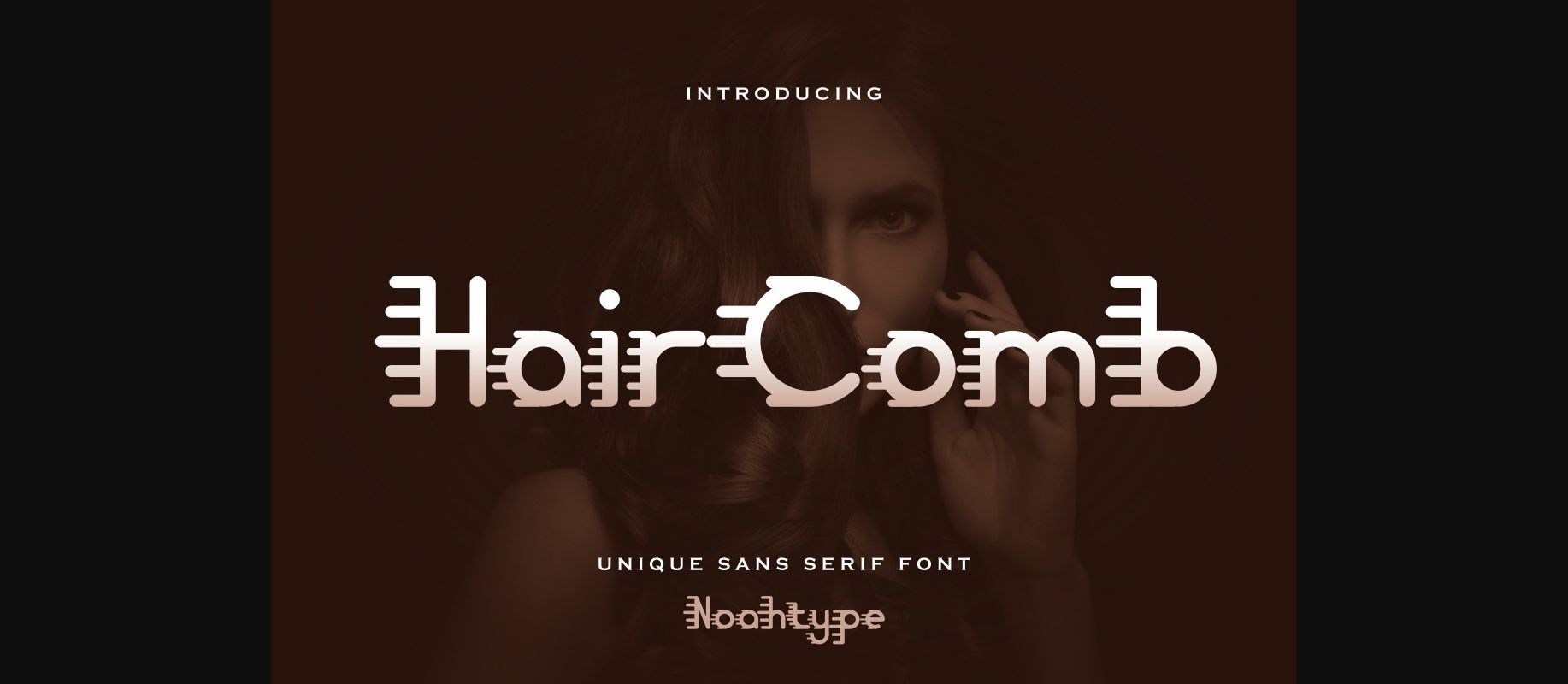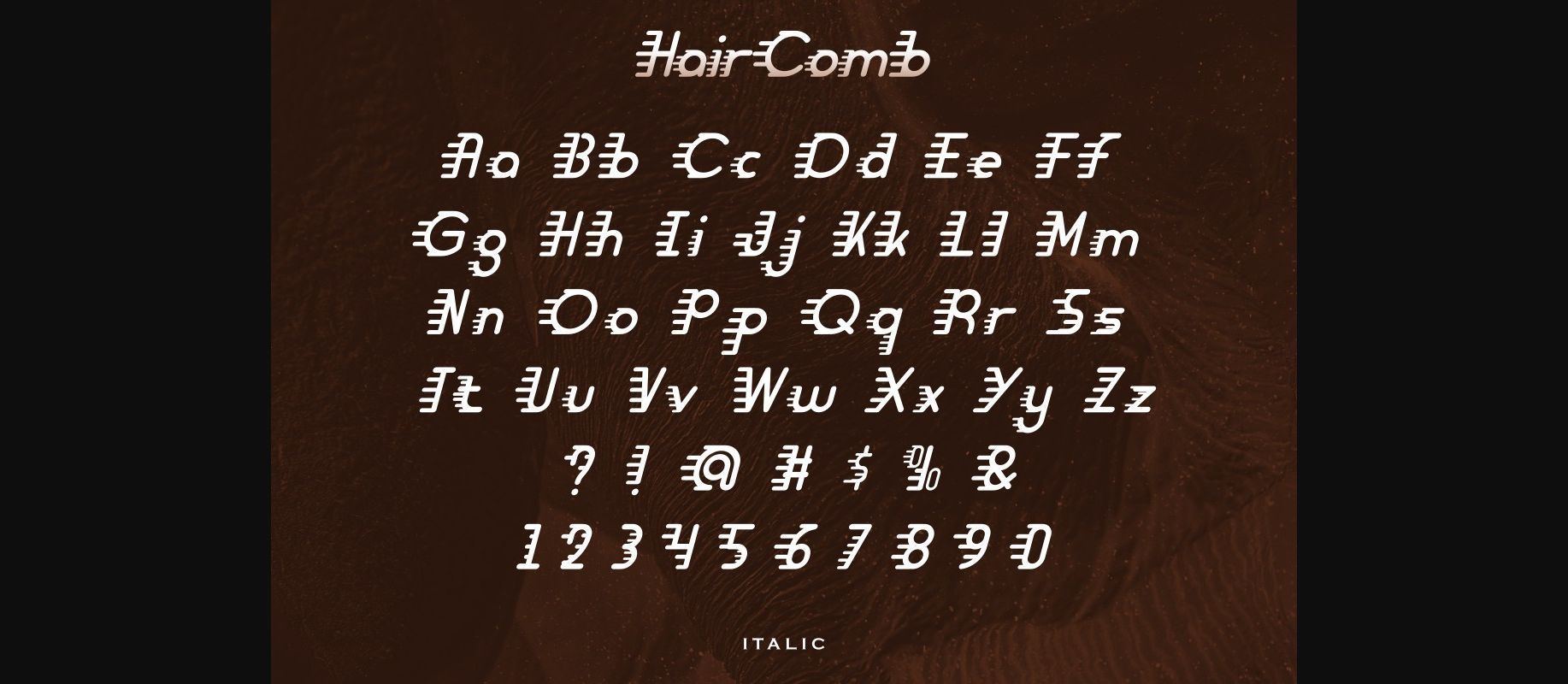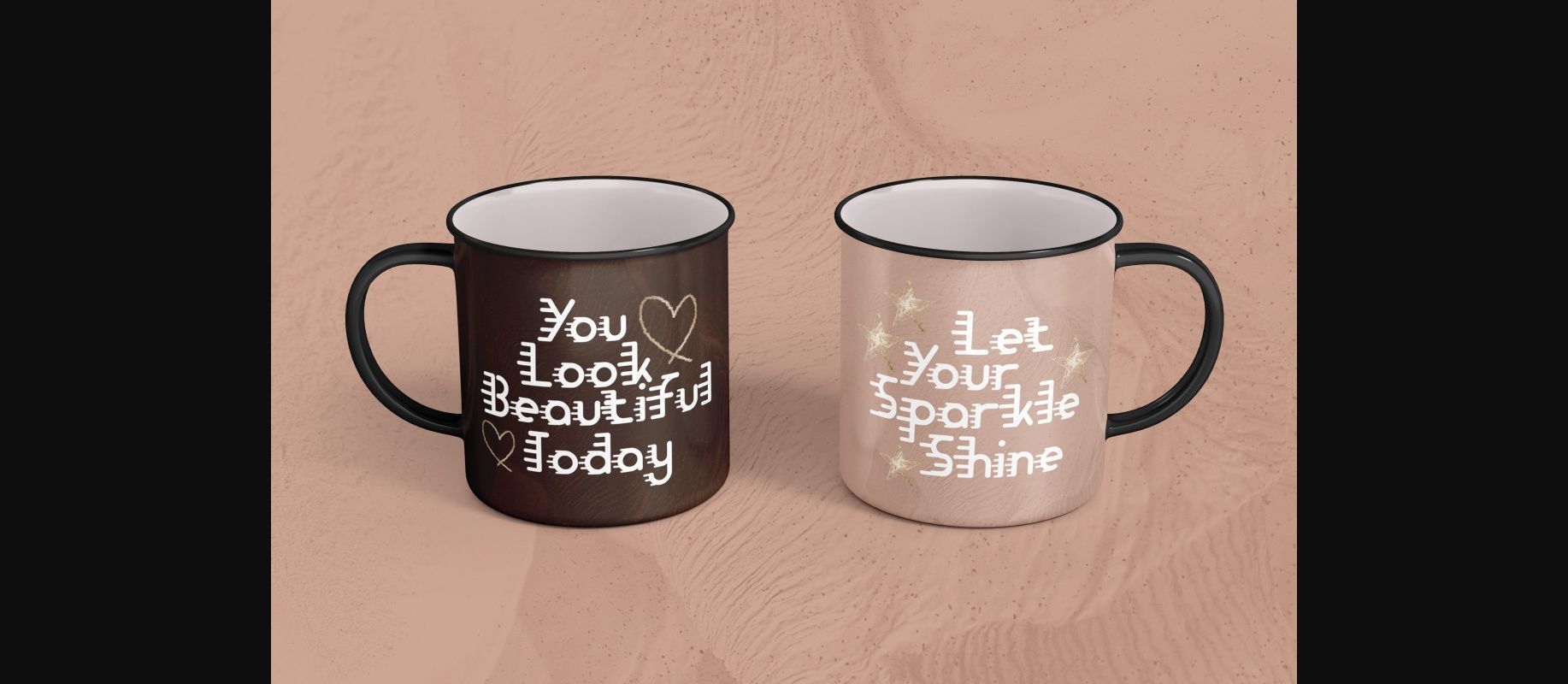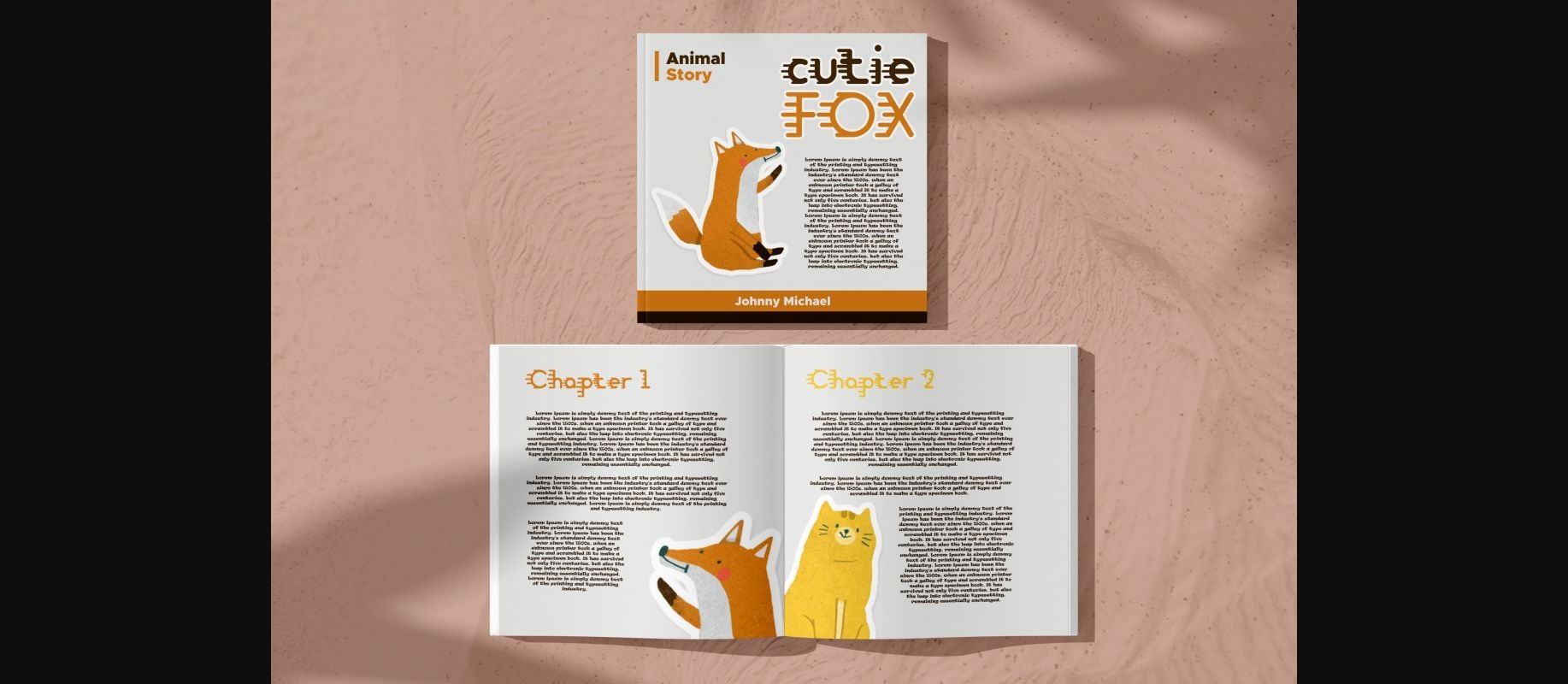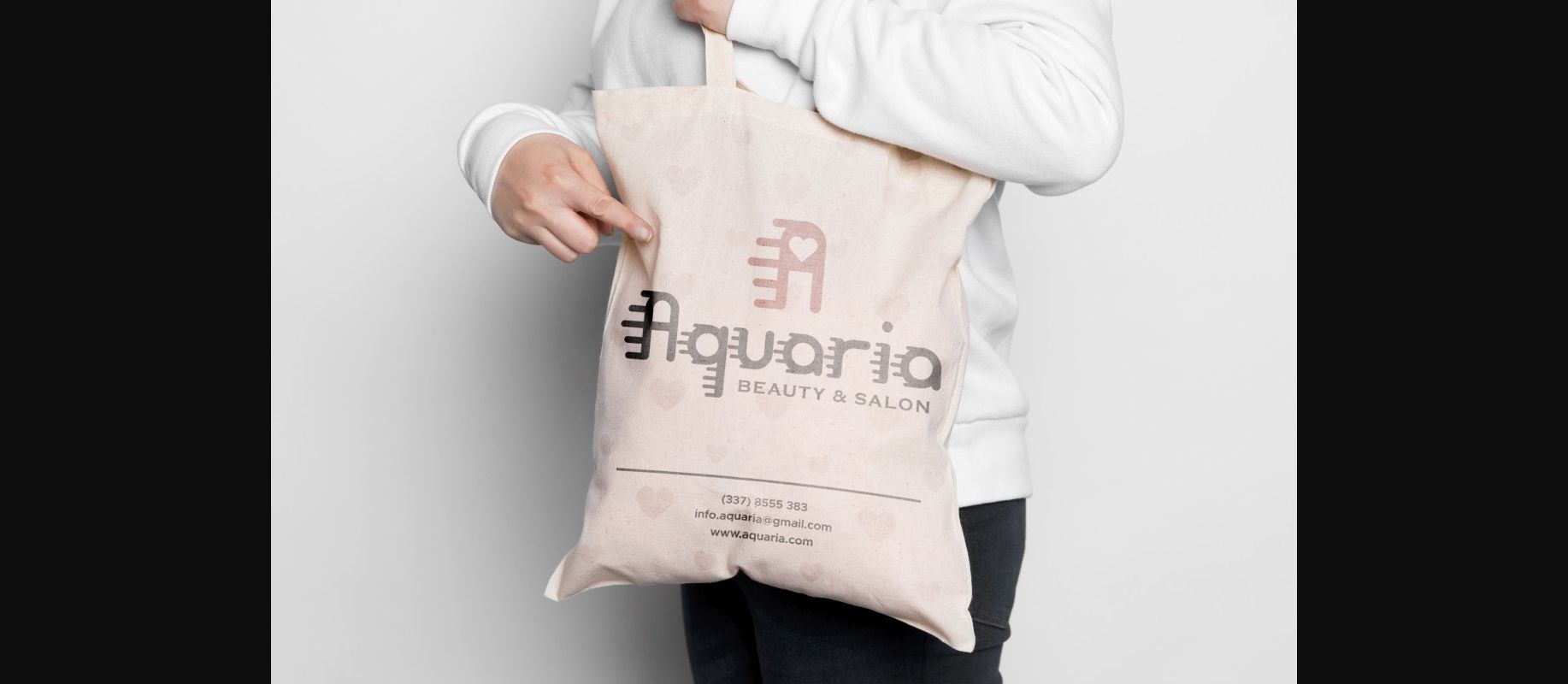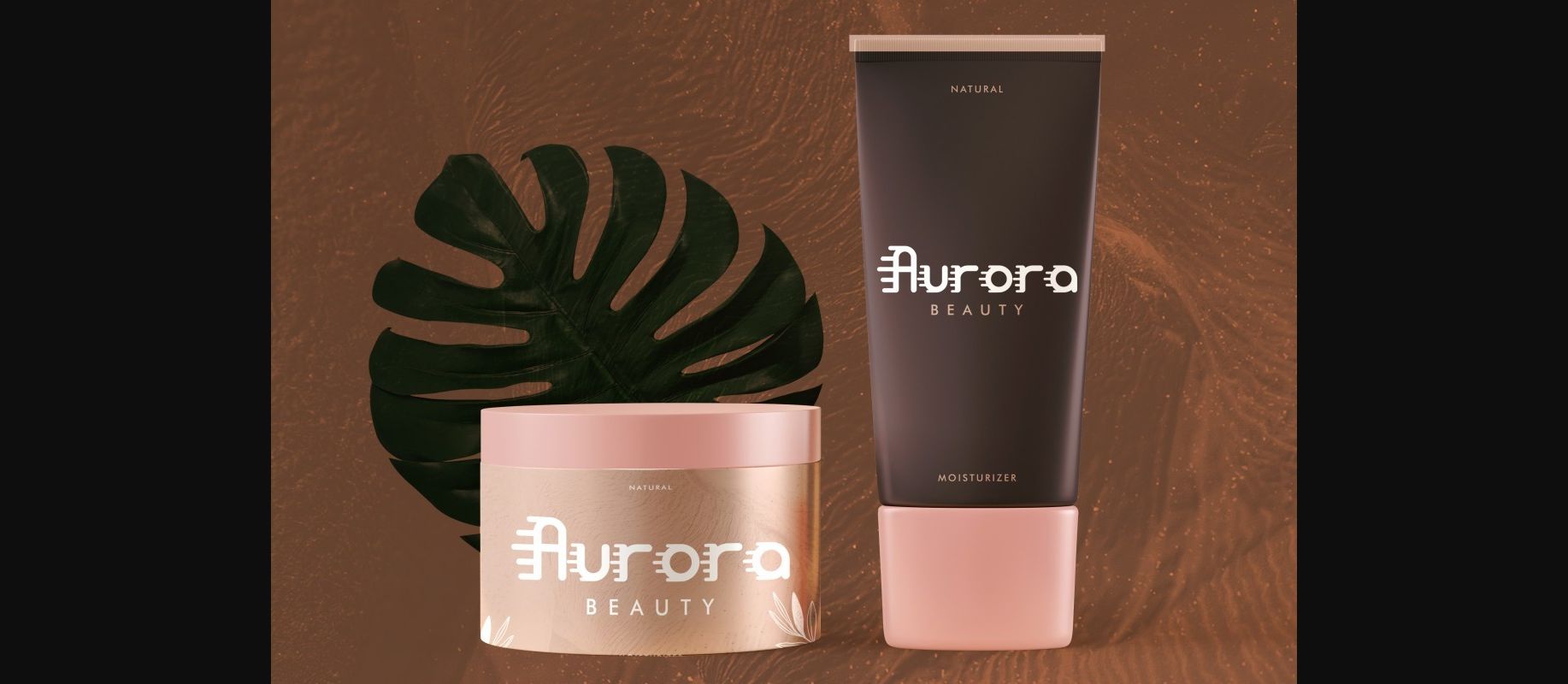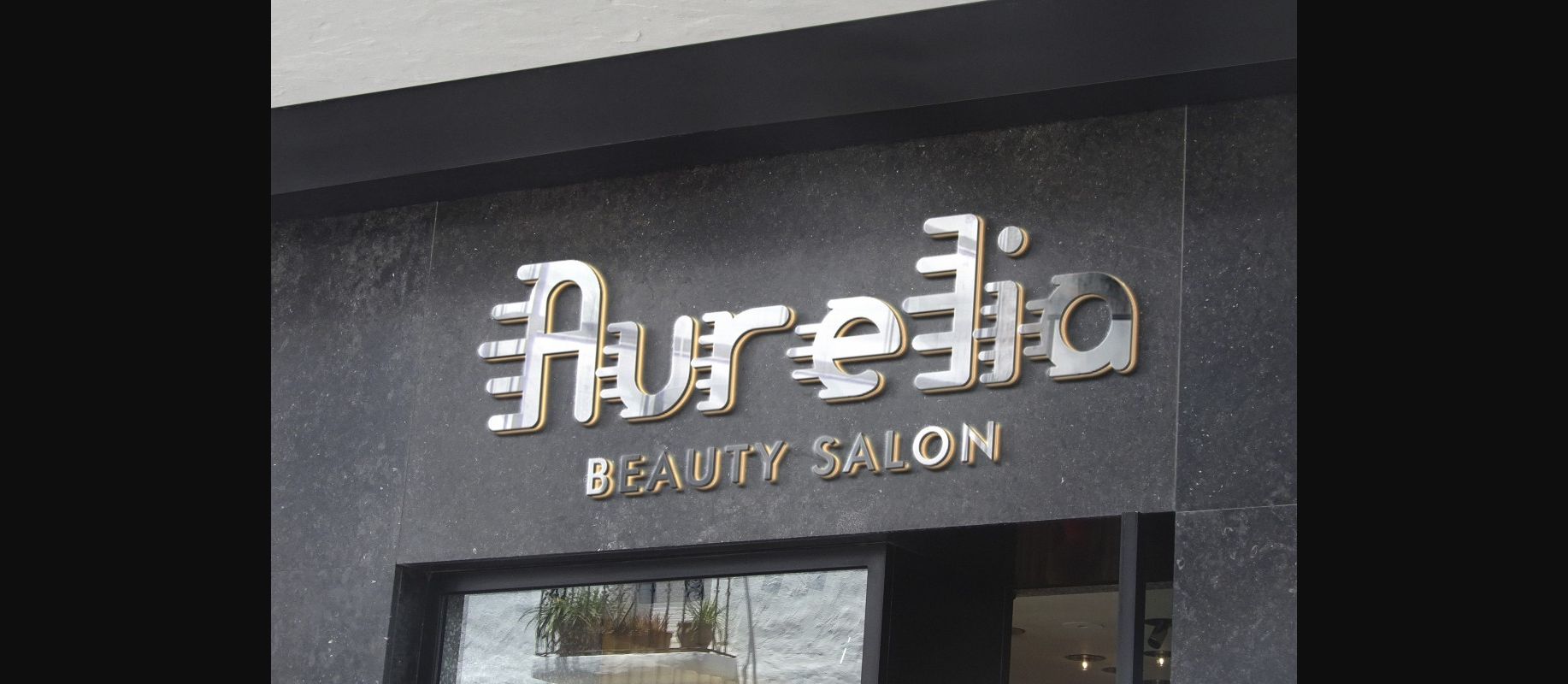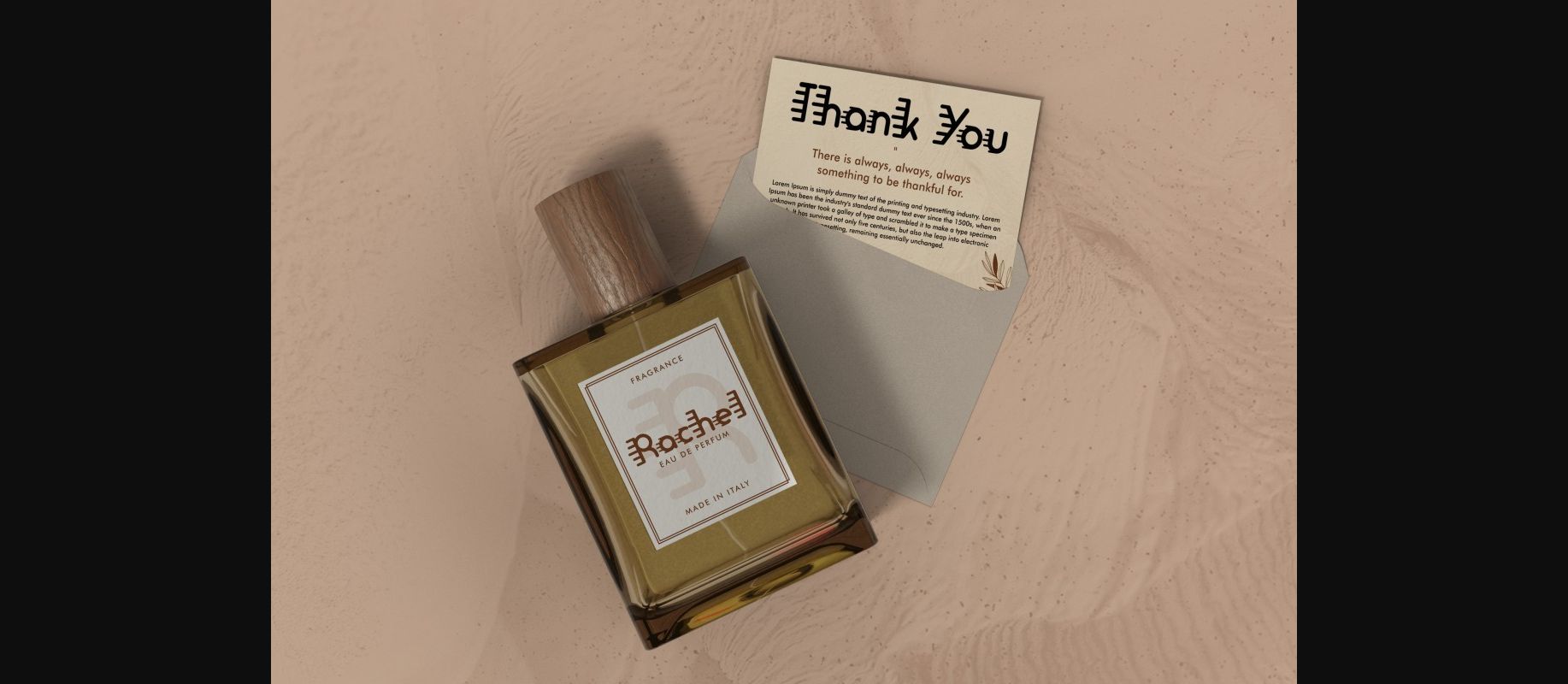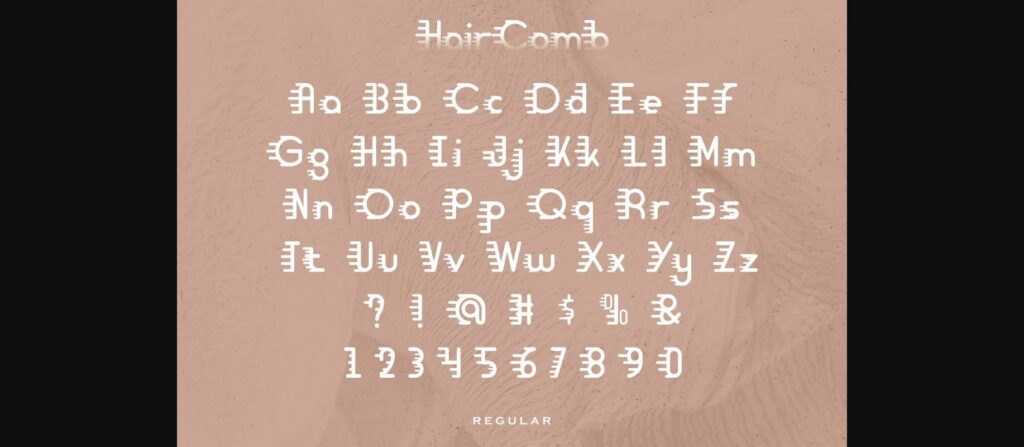
About Hair Comb Font
Hair Comb is a creative decorative font with a unique style inspired by fire and comb. The font was also inspired by techno and hip posters. It has a unique style that will bring a special effect to your designs.
It works well for games, technology, events, headlines, logos, posters, titles, product packaging, etc.